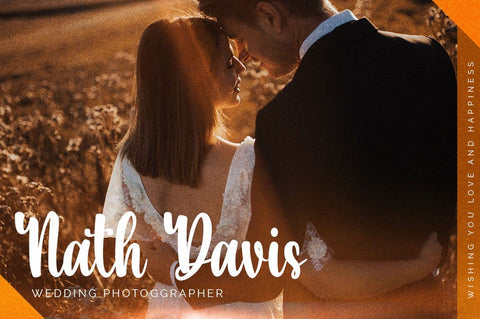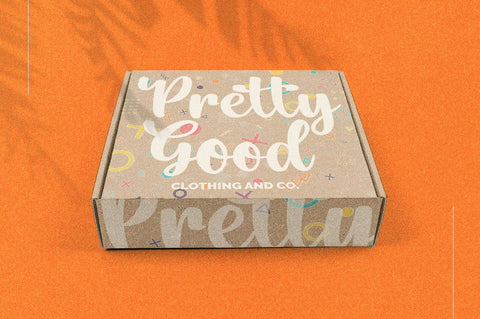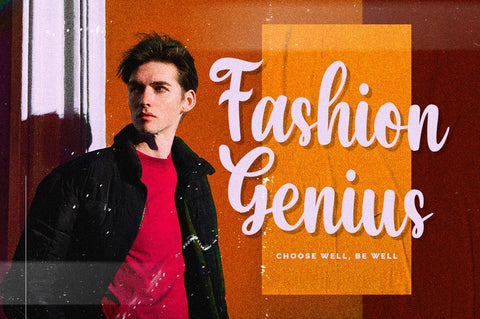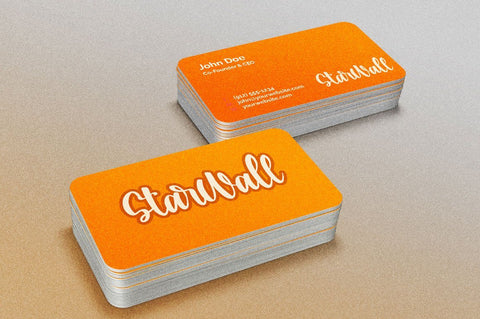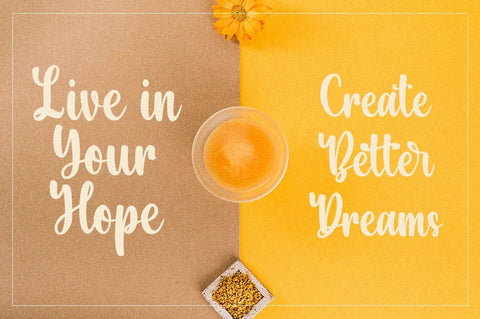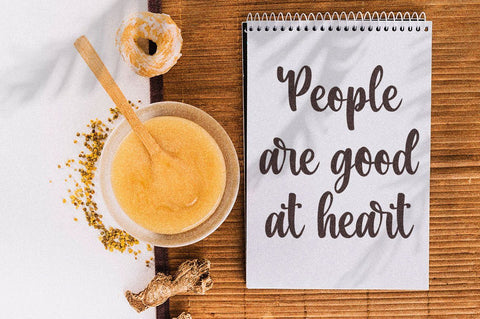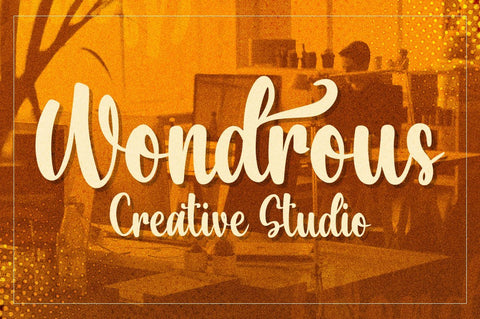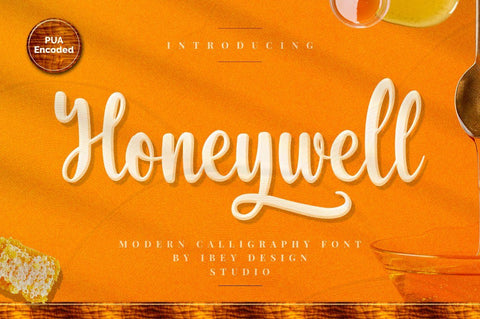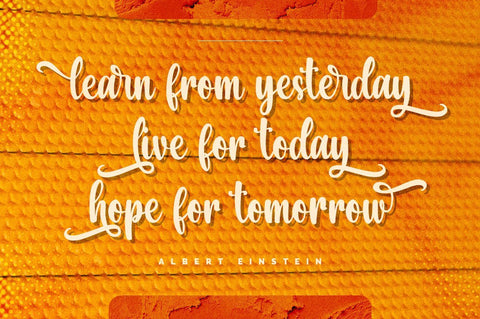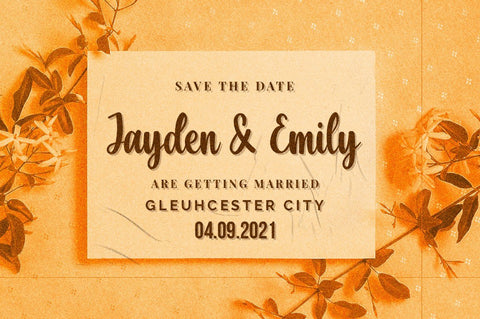
Honeywell - Modern Calligraphy Font
Honeywell Modern Calligraphy Font is a beautiful light handwritten font with a unique feel and a stunning impact. It will add a luxury spark to any design project that you wish to create!
Honeywell Modern Calligraphy Font is PUA encoded which means you can access all of the glyphs and swashes with ease!